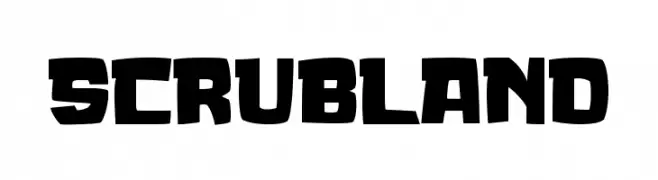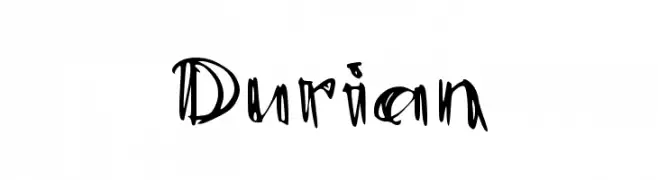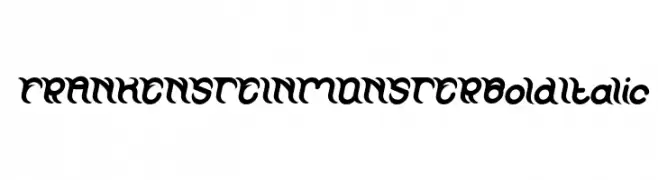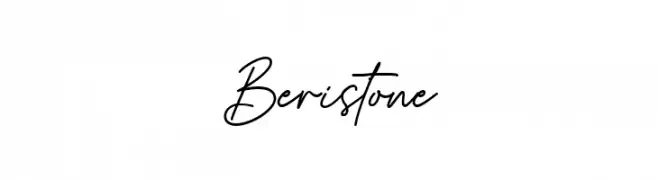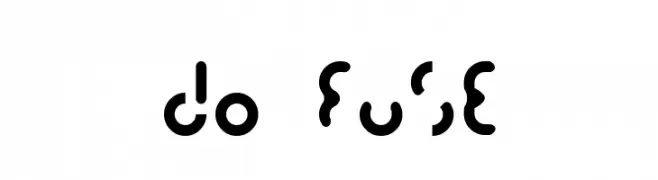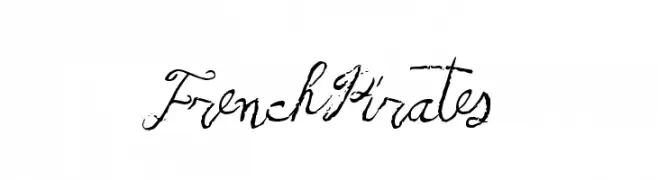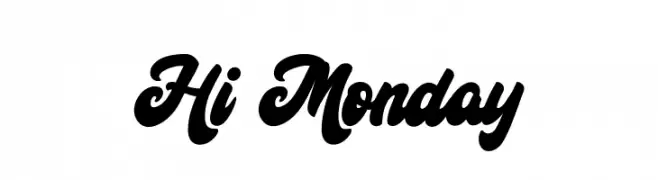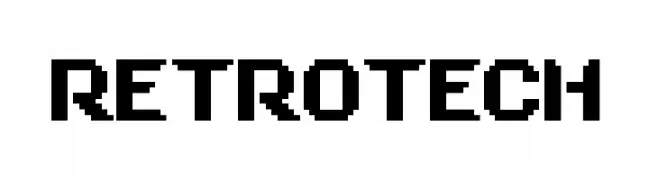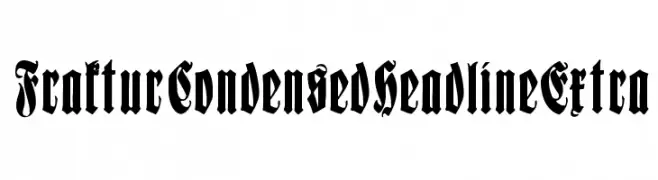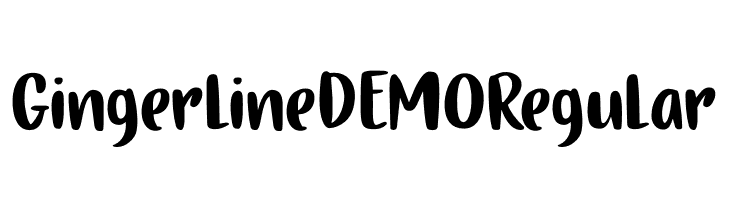
A bold, angular, and geometric font ideal for impactful headlines.
Animal silhouettes create each character in a decorative, illustrative style.
A bold, expressive font with a hand-drawn, energetic style.
A bold, italicized font with a monstrous and playful design.
Elegant handwritten script with connected, flowing strokes.
A bold, abstract font with rounded forms and a futuristic aesthetic.
A vintage, calligraphic font with an adventurous and historical flair.
A bold, expressive script font with flowing, interconnected letterforms.
A bold, blocky font with a retro, pixelated style.
A bold, condensed blackletter font with intricate details and a historic flair.